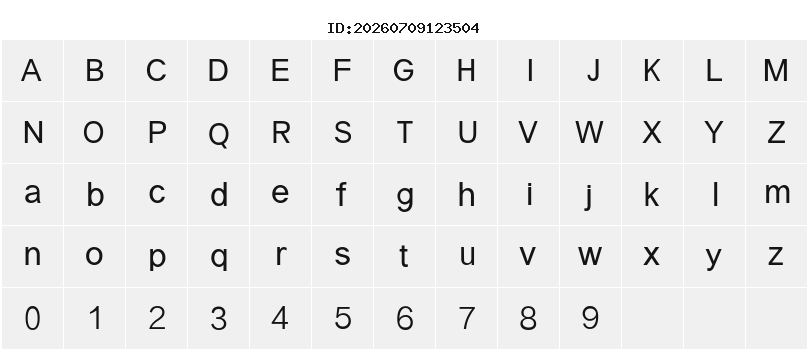
• Font Name: 三极素纤简体
• Full Font Name: SJsuqian Regular
• PostScript Name: SJsuqian-Regular
• Manufacturer: SANJI
About 三极素纤简体.ttf
三极素纤简体.ttf is a modern, elegant sans-serif font designed for ultimate readability and visual harmony. Perfect for branding, headlines, web design, and print materials.